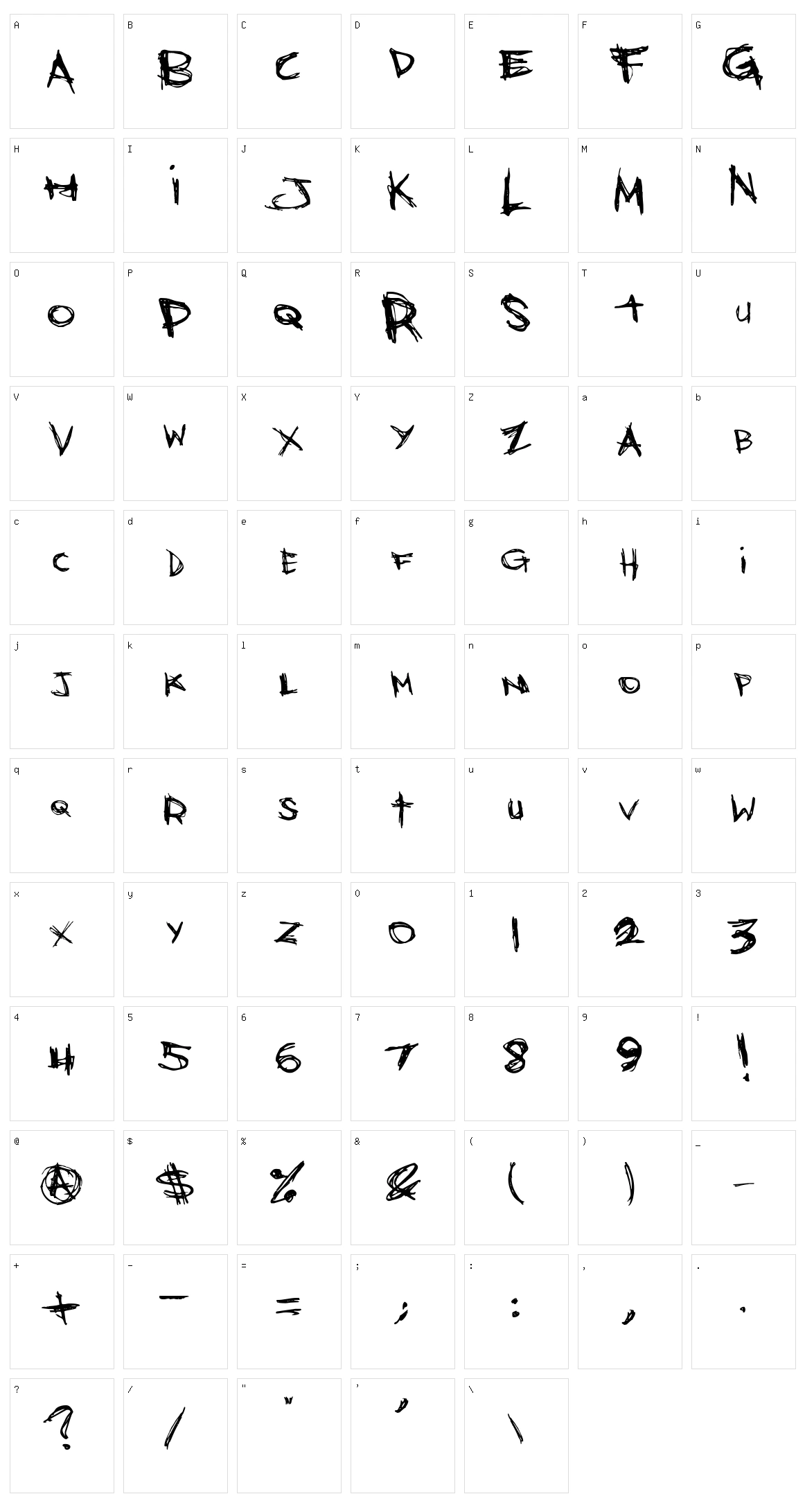
The free font Bones Bummer is carefully designed by Damien Gosset, showcasing a thoughtful balance of creativity and usability and falls under the Trash font style. When you download the ZIP file, it contains only 227.61 KB of font files, making it lightweight and quick to download. Please review the license details below to understand permitted usage and distribution rights. If license information is not available, we recommend using this font for personal projects only or contacting the author directly for commercial usage permissions.